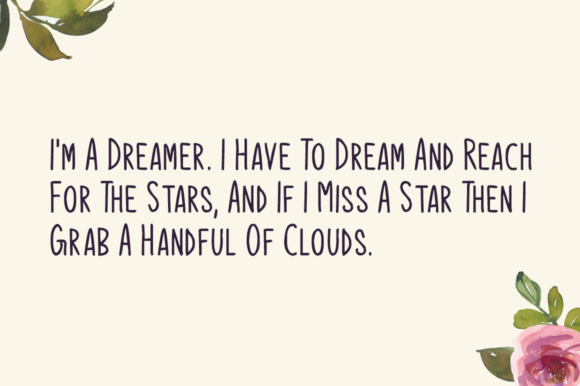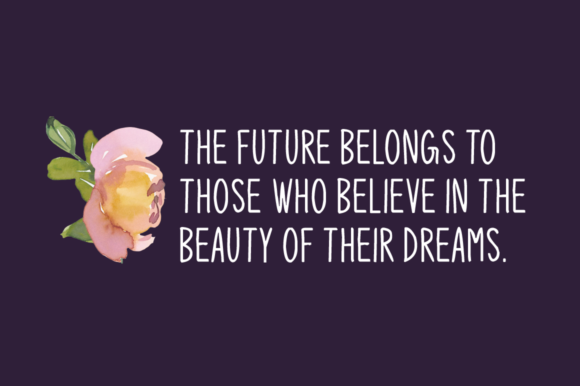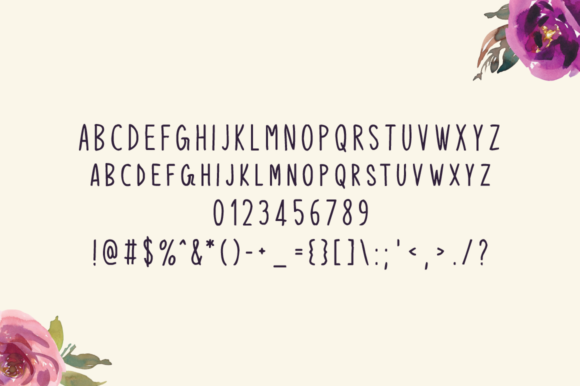
Hello Dreamer Font
About Hello Dreamer Font
Hello Dreamer is a sweet and friendly handwritten font. Its natural and unique style makes it incredibly fitting to a large pool of designs.